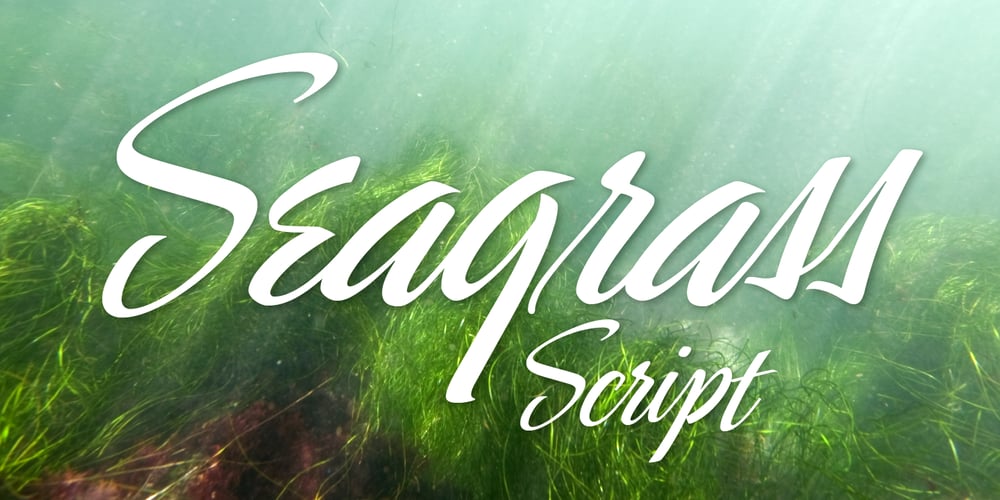
Seagrass BF Font Family was designed by John Bomparte and published by Bomparte’s Fonts. Seagrass BF contains 1 styles and family package options. Inspired by lettering styles of the 1930s, Seagrass BF is jazzy and jumping as a Lindy Hop. As such it captures I believe, something of the spirit of that age, yet somehow retains a fresh, contemporary feel. Headlines, logos, packaging, signage and branding are just a few of many usages. Seagrass BF contains Stylistic Alternates and Stylistic Sets for uppercase letters Y and Z, as well as ampersand (&). Other OpenType features include Standard Ligatures and Contextual Alternates. These features should at all times be employed to optimize the appeal of your word settings. So whenever your visual communication demands an energetic, vibrant voice please consider Seagrass BF.